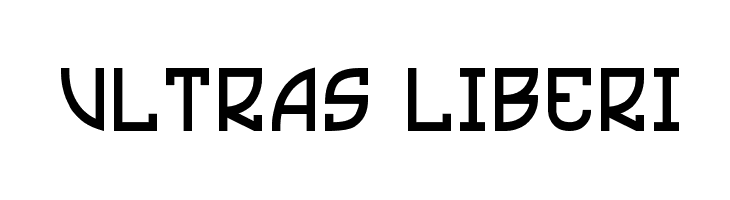
A bold, outlined collegiate-style font with a strong, three-dimensional effect.
A bold, geometric font with a futuristic and angular design.
A bold, outlined font with a playful, comic book style.
A playful, handwritten font with rounded, smooth letterforms.
A bold, cursive font with smooth, flowing lines and connected characters.
A bold, modern font with strong lines and a professional appearance.
A classic serif typeface with high contrast and elegant design.
A bold, playful font with decorative serifs and unique swashes.
A playful, bold font with rounded, bubbly characters ideal for fun and creative projects.
A modern, tall, and narrow sans-serif typeface with clean lines.
A pixelated, blocky font with a retro digital aesthetic.
A bold, distressed font with a grunge aesthetic and tall, narrow characters.
A bold, playful font with a graffiti-inspired style.
A modern, semi-bold sans-serif font with clean lines and balanced proportions.
A modern, geometric sans-serif typeface with uniform stroke widths and excellent readability.
A bold, gothic font with sharp, angular edges and a dramatic presence.
A bold, adventurous font with sharp serifs and a distressed appearance, perfect for pirate-themed projects.
A bold, angular font with a modern yet vintage flair.
A bold, brushstroke font with a dynamic, calligraphic style.
A semi-bold serif font with a classic and elegant style.
A bold, italicized script font with a dynamic and flowing style.